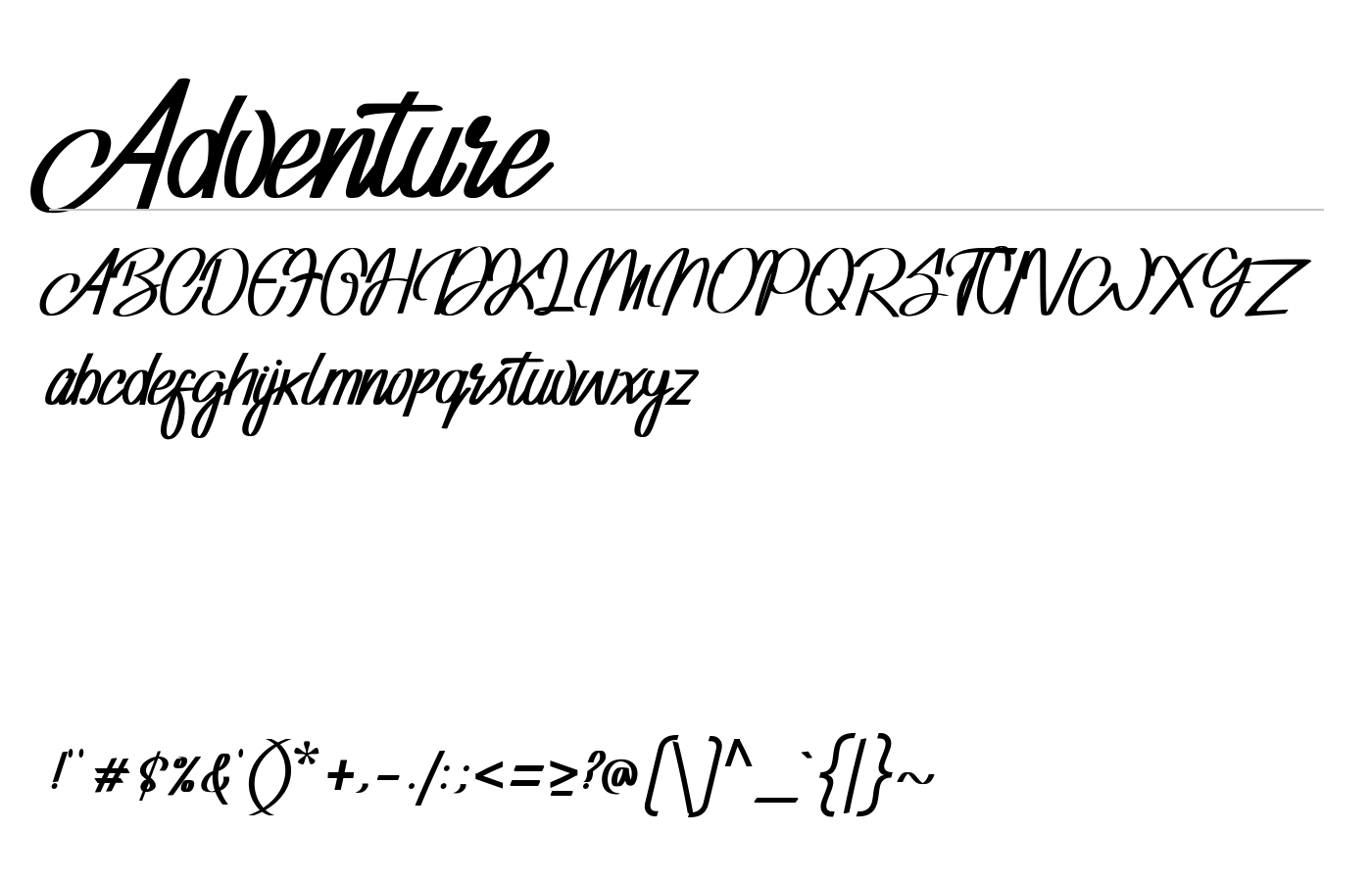
Adventure Font is an elegant, script-style typeface characterized by its flowing, moderately condensed letterforms and smooth, calligraphic strokes. It conveys a sense of sophistication and creativity, making it ideal for branding, invitations, and logos where a stylish, personal touch is desired. Its legible yet decorative nature allows it to work well in headlines and designs that aim to evoke a refined, adventurous spirit.
Adventure Font
About Adventure Font
| Font family | Adventure Font |
| Designer | DENIS |